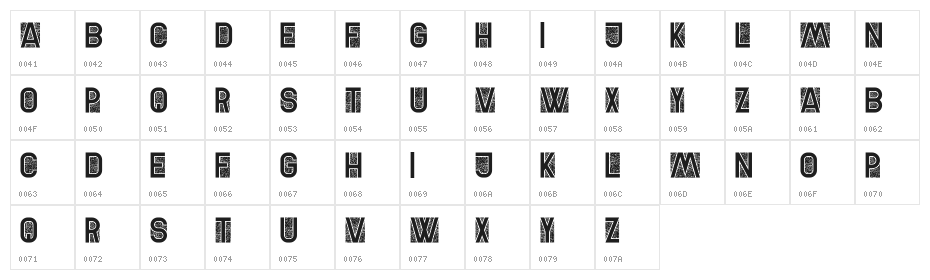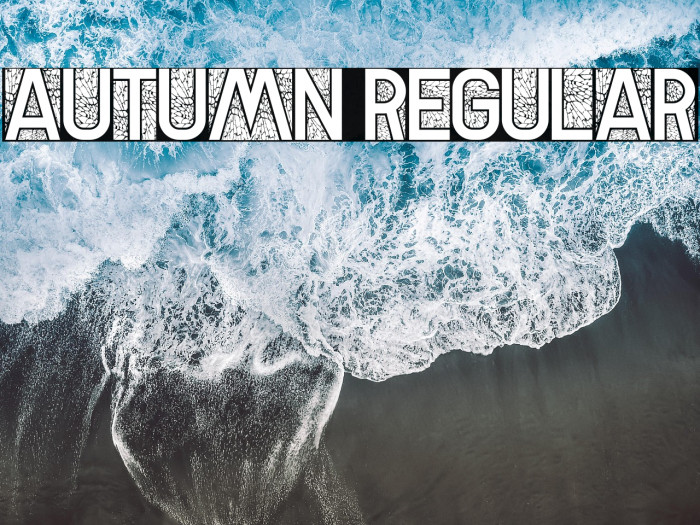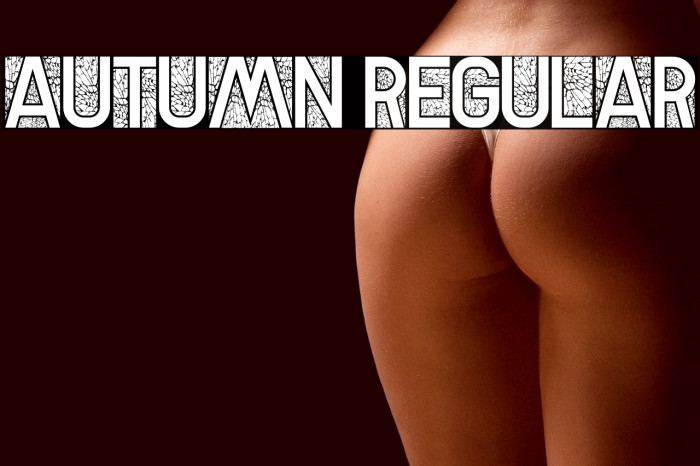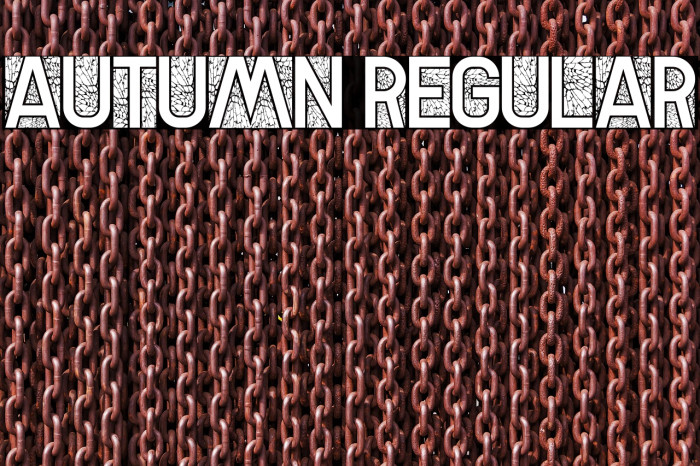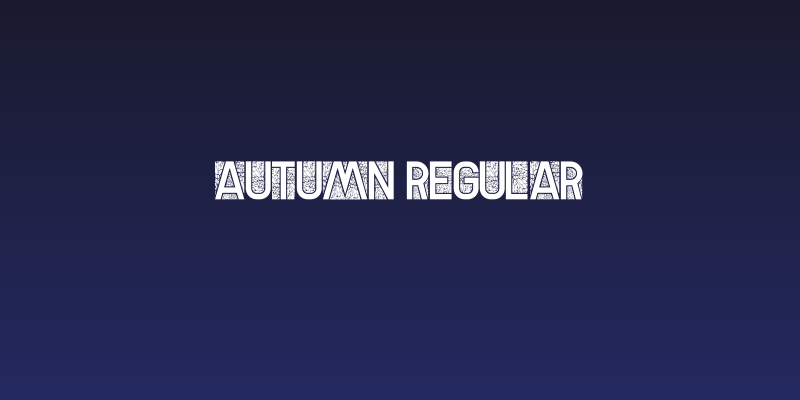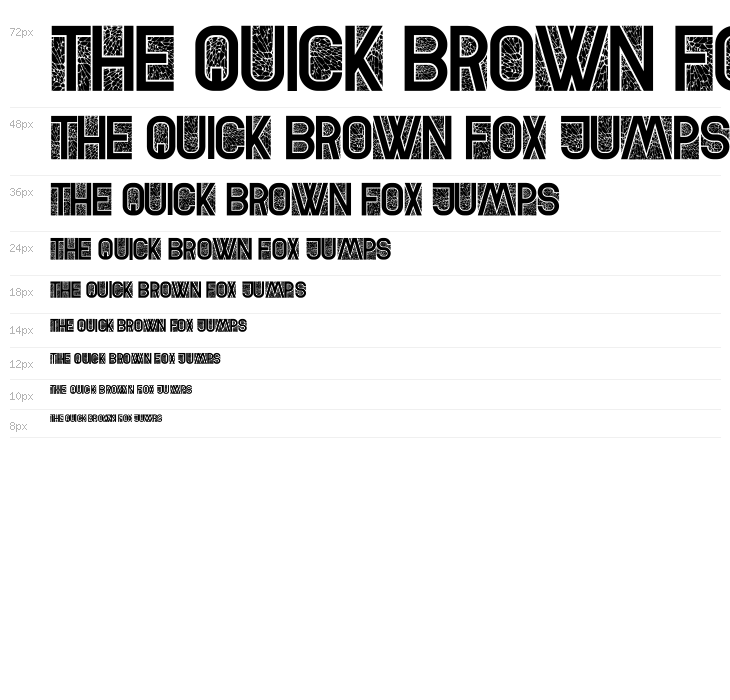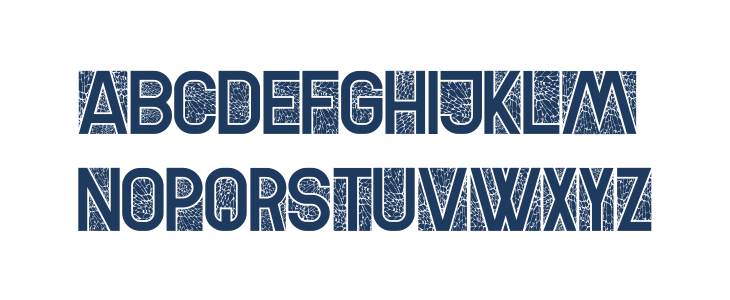
Autumn Regular Font
Autumn Regular Description
This font features a bold, decorative style with a unique texture resembling cracked or shattered glass within each character. The uppercase letters are prominent and eye-catching, making it ideal for display purposes. The design incorporates a modern aesthetic with a touch of grunge, providing a dynamic and edgy appearance. The characters are uniformly wide, with consistent spacing that enhances readability despite the intricate internal pattern. This font is particularly suited for creative projects that require a strong visual impact.
| Proposed Projects | Ideal for poster designs, album covers, branding materials, and any project needing a striking visual element. |